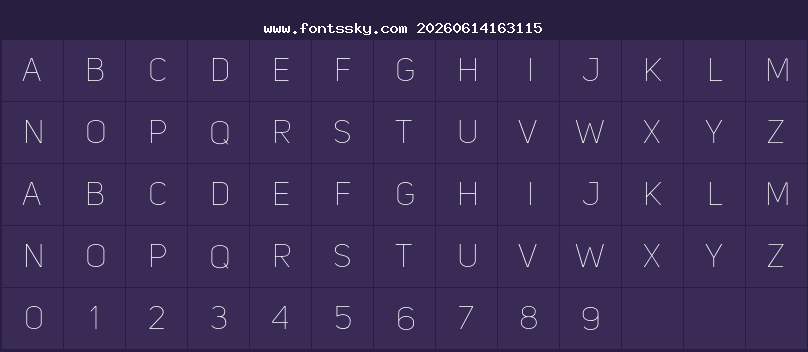
Uni Sans Thin CAPS Preview
• Font Name: Uni Sans Thin CAPS
• Designer: Svetoslav Simov
About Uni Sans Thin CAPS.otf
Uni Sans Thin CAPS.otf is a modern, elegant sans-serif font designed for ultimate readability and visual harmony. Perfect for branding, headlines, web design, and print materials.